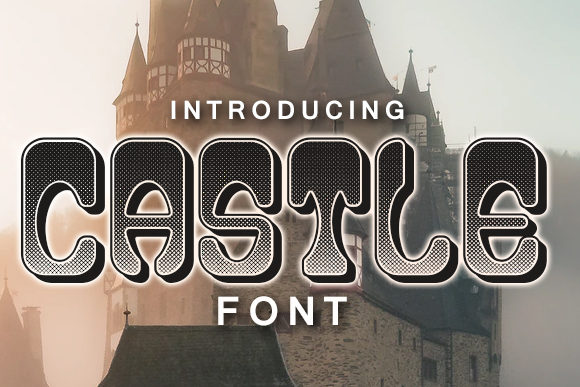
The Castle Font: A Quirky Display Font to Elevate Your Designs
I’ll never forget the time I was working on a project for a client who wanted a font that was a little unconventional, a bit quirky, and totally eye-catching. I scoured the internet, tried out dozens of fonts, but nothing seemed quite right. That was until I stumbled upon the Castle font. It’s a unique display font that has a certain charm to it, and I’ve been hooked ever since.
- ✨ Unique and quirky design that’s perfect for making a statement
- ✅ Highly versatile and adaptable to various design contexts
- 💡 Excellent for headlines, titles, and short text passages
- 🎨 Great for designers, crafters, and creative hobbyists looking for a distinctive font
While the Castle font is incredibly useful, there are a few things to keep in mind:
- ⚠️ May not be suitable for body text or long passages due to its display nature
- 🤔 Some characters may appear a bit distorted or stylized, which can be a bit jarring if not used correctly
The Castle font was likely inspired by medieval architecture and the whimsical feel of fairy tales. Imagine a world where castles and dragons come alive, and the typography is just as fantastical. The designer probably wanted to create a font that captures that sense of wonder and enchantment, and I think they’ve succeeded admirably.
Q: What is the Castle font best used for?
A: The Castle font is ideal for display purposes, such as headlines, titles, and short text passages. It’s not recommended for body text or long passages.